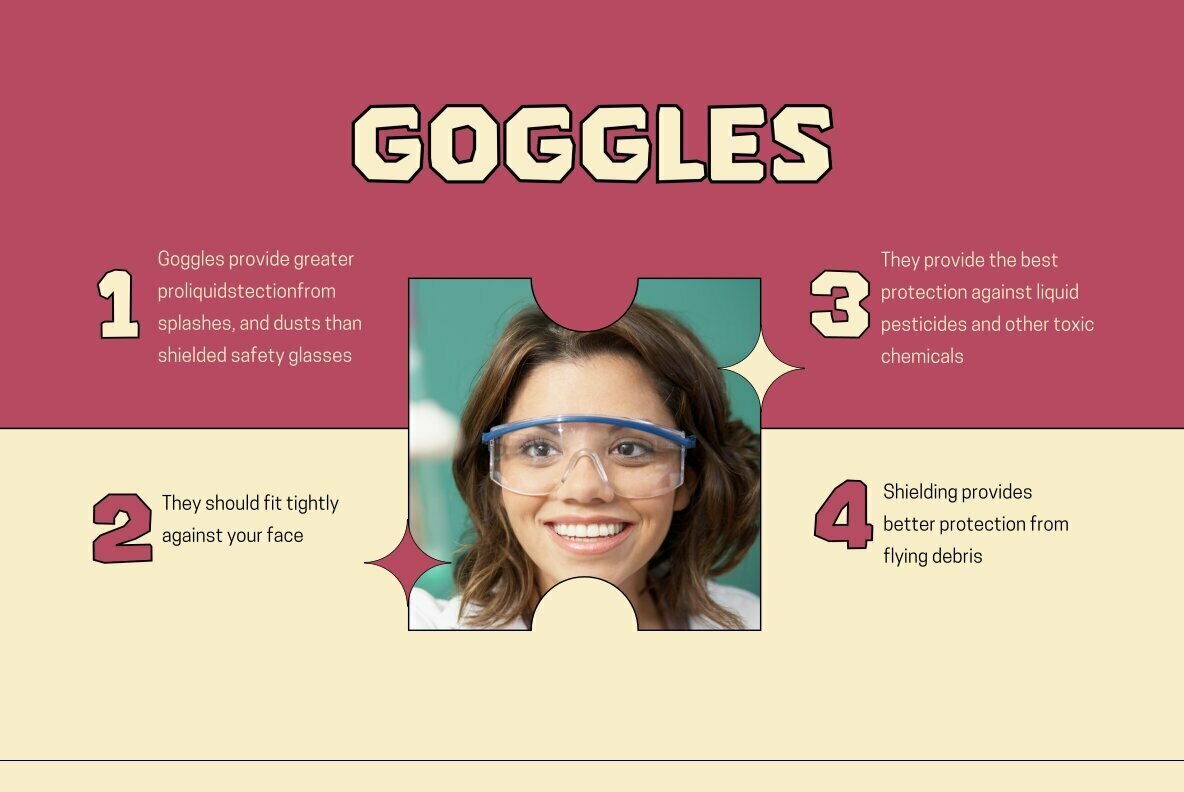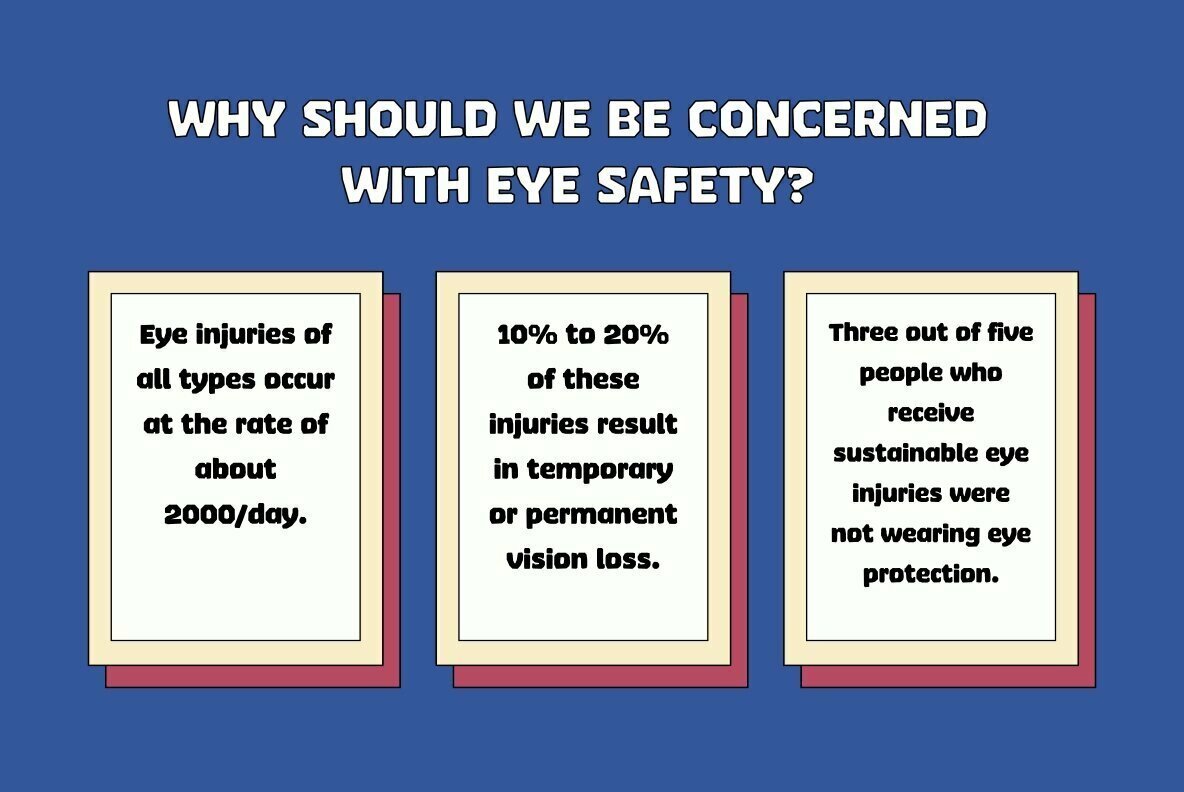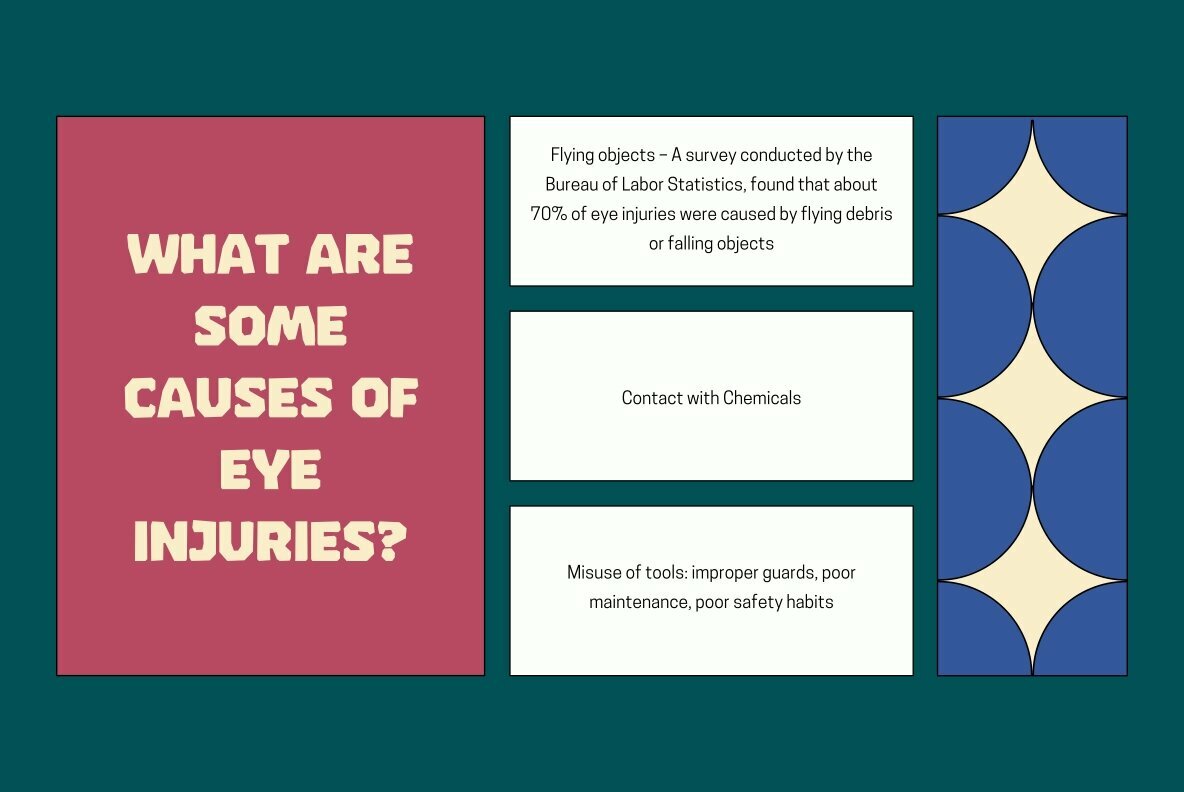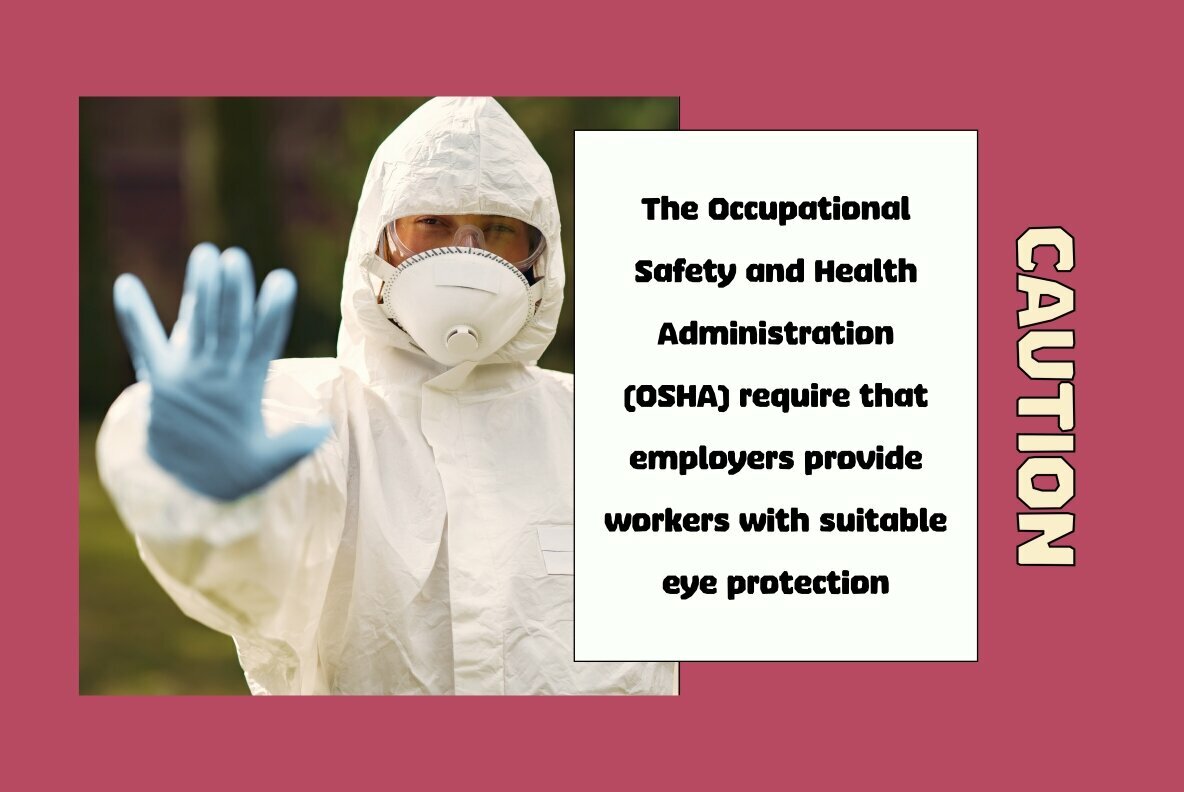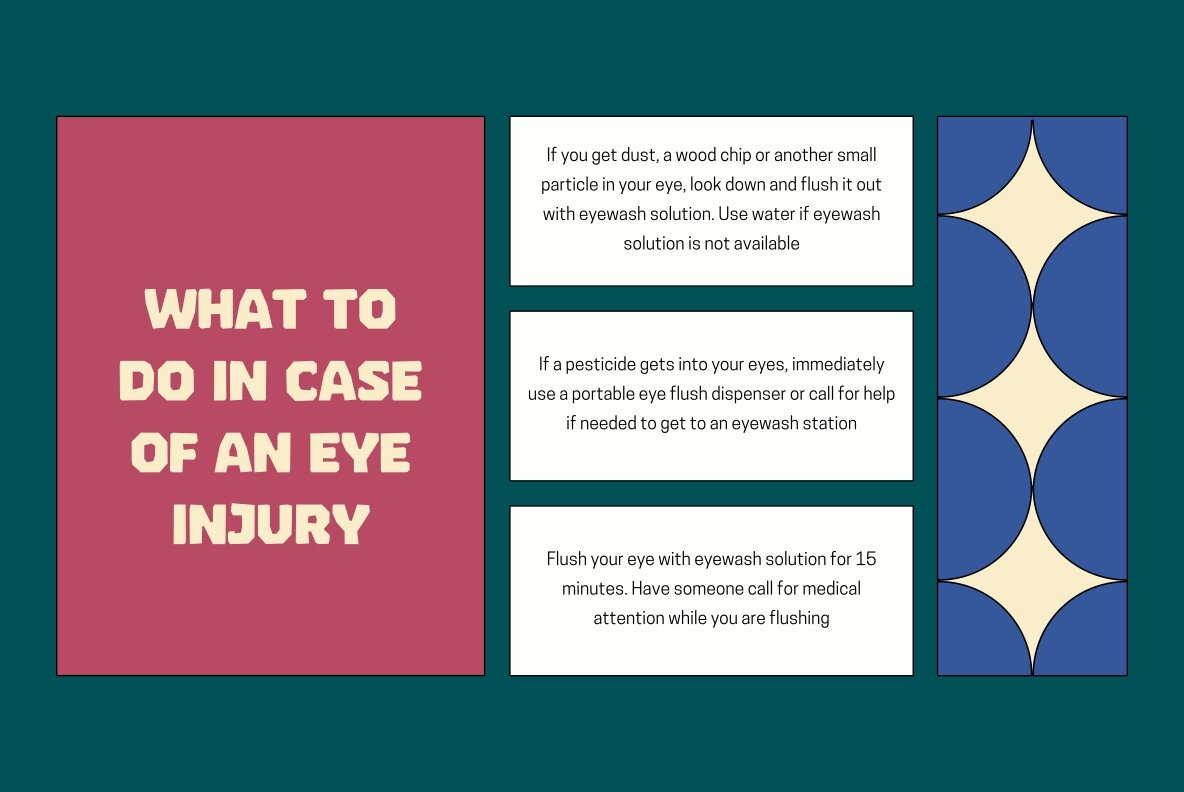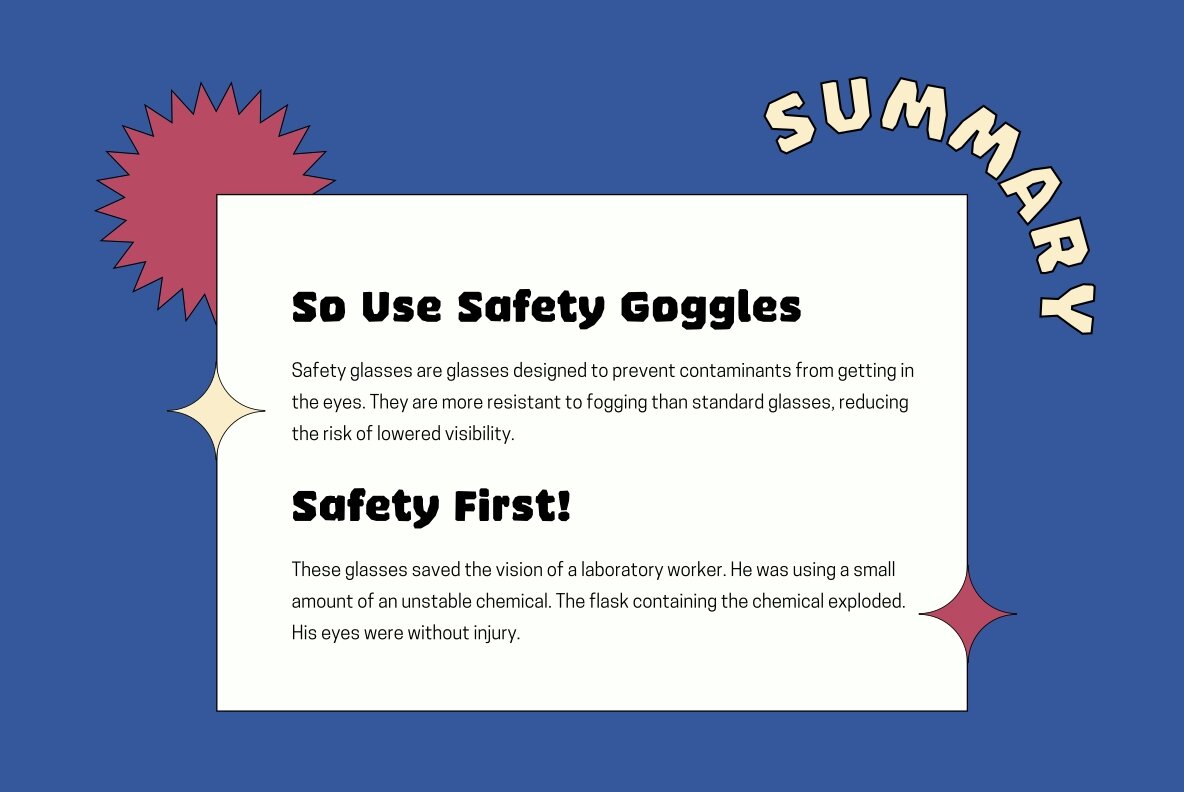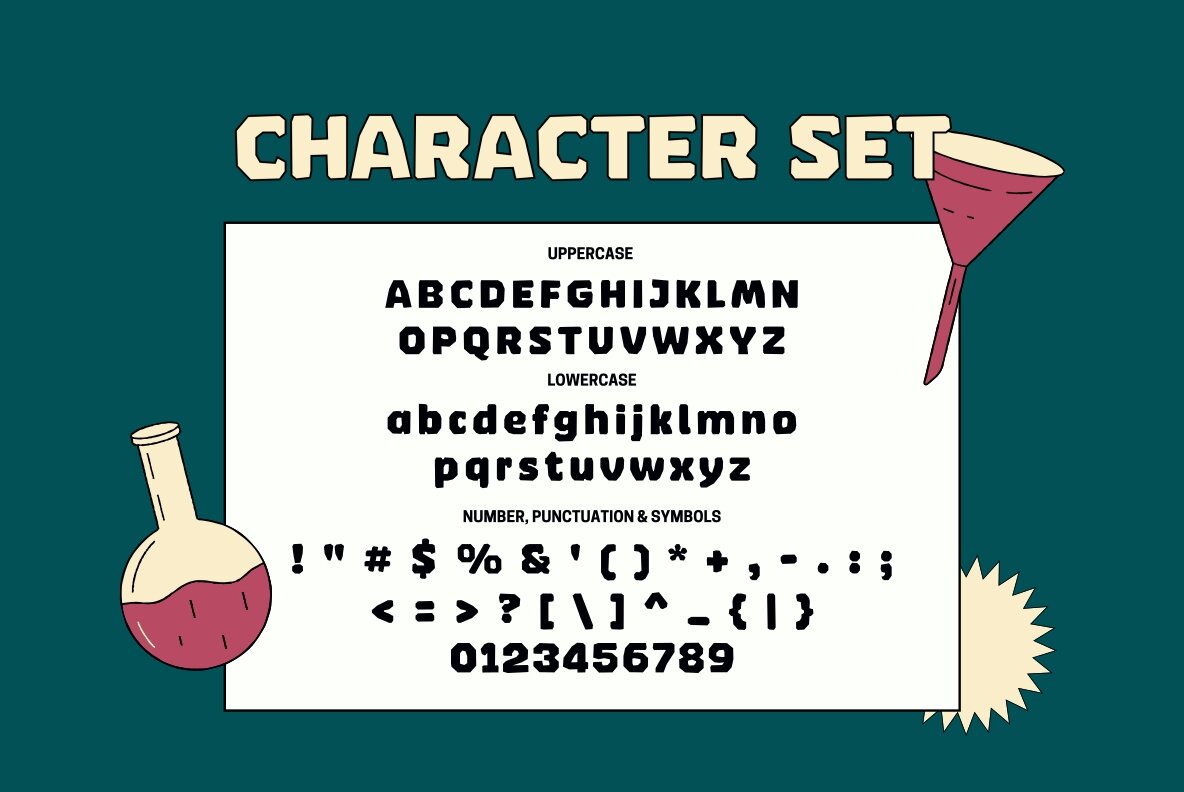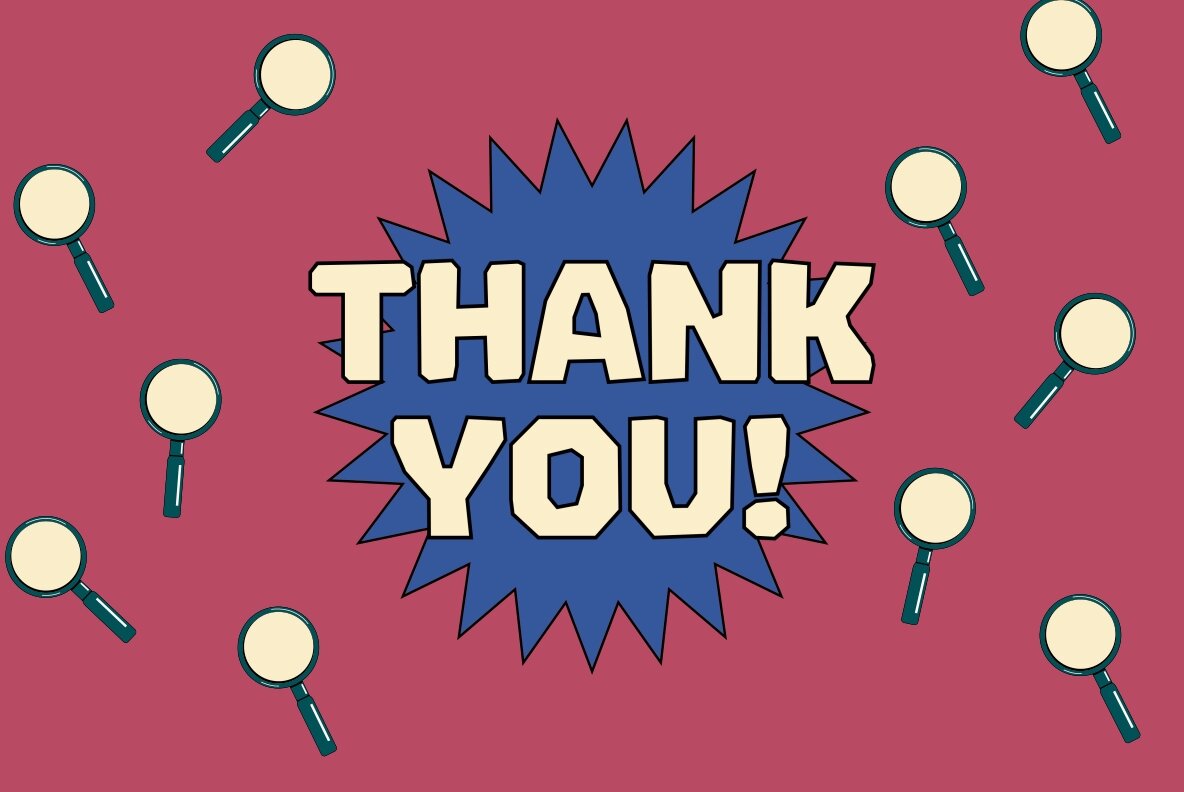
Safety Goggles Font
Safety Goggles Regular
Safety Goggles is a bold, strong, masculine display font. This font is perfect for SVG design, sticker, home decoration, quotes, headings, blogs, logos, invitations and more!